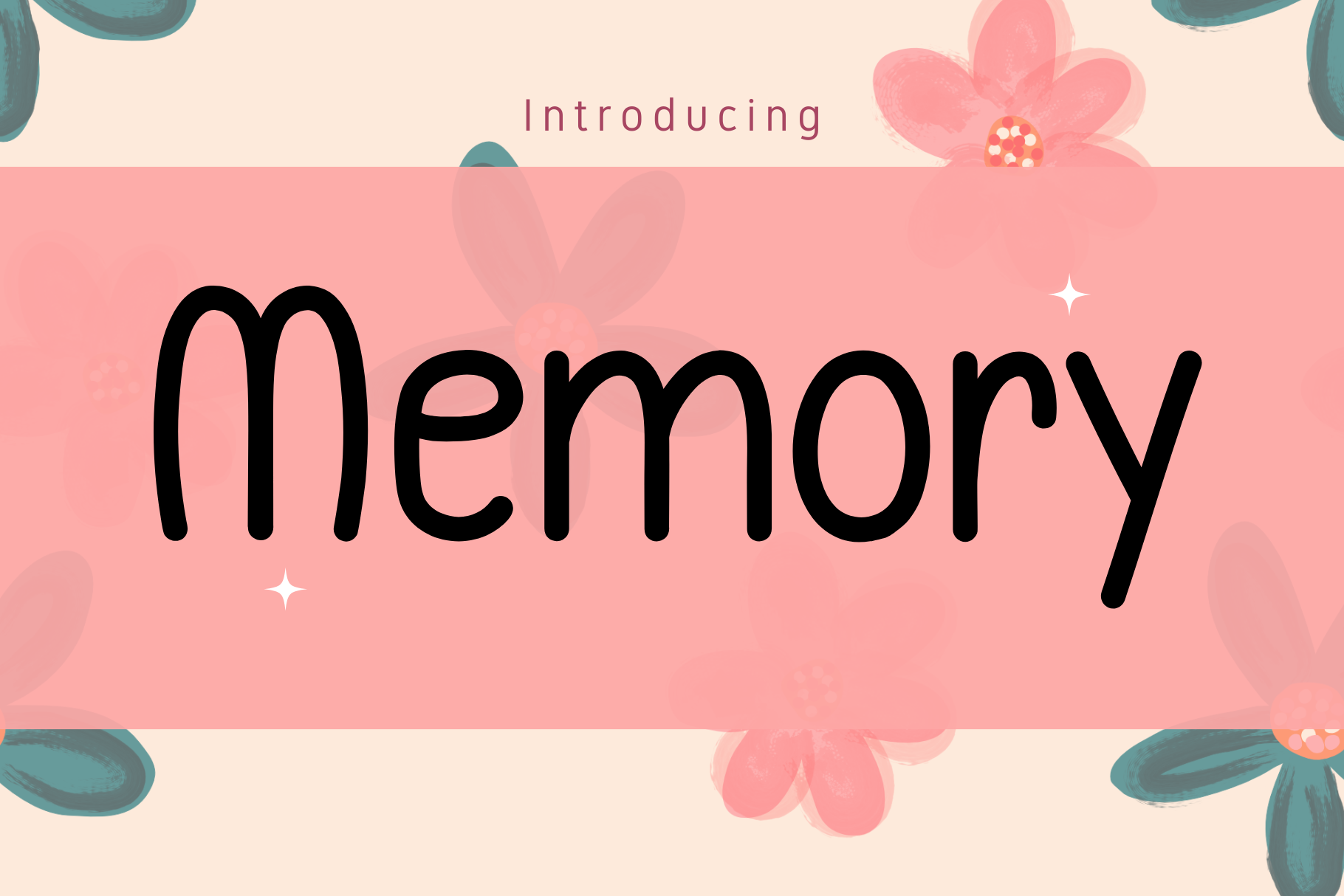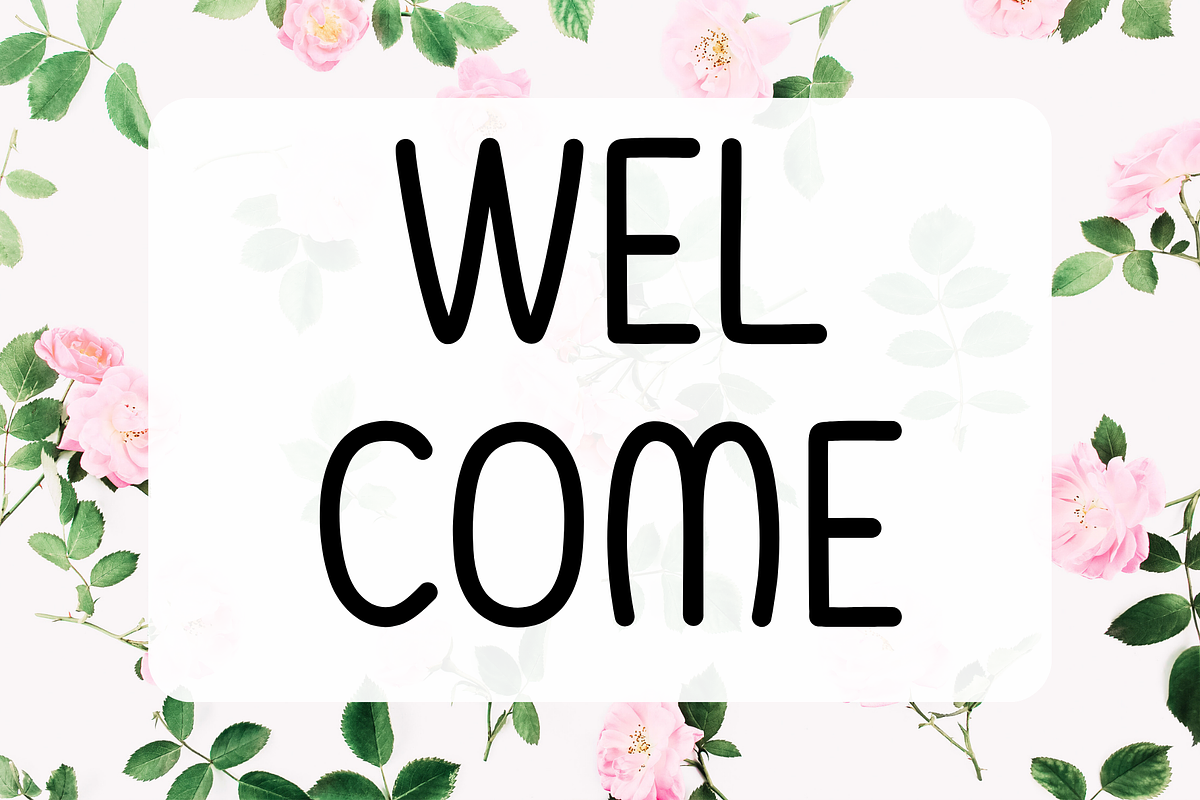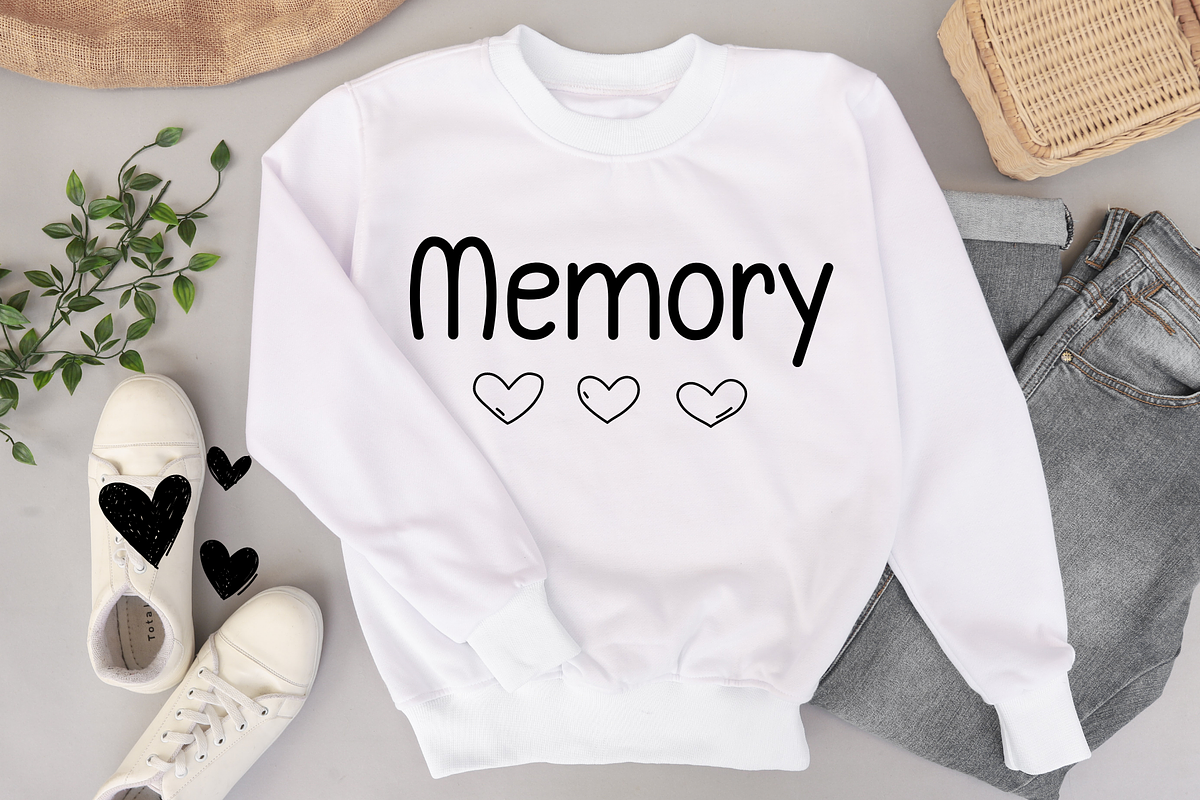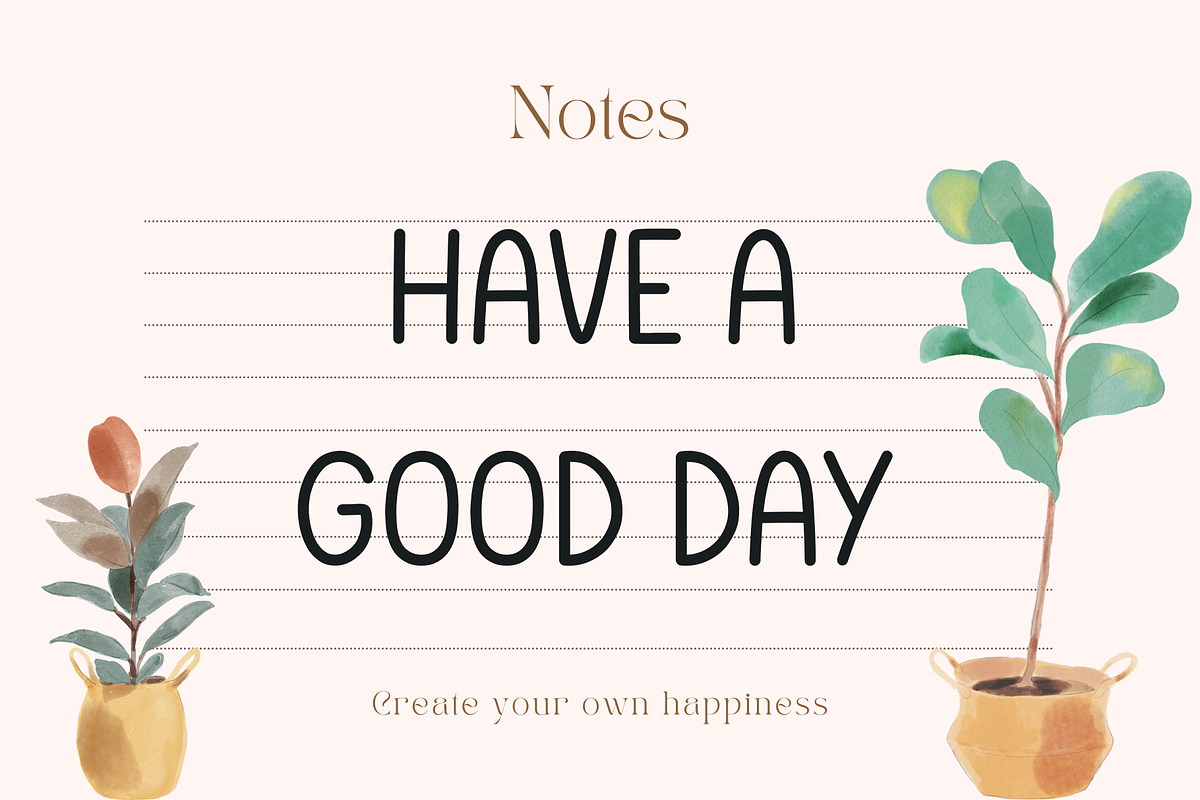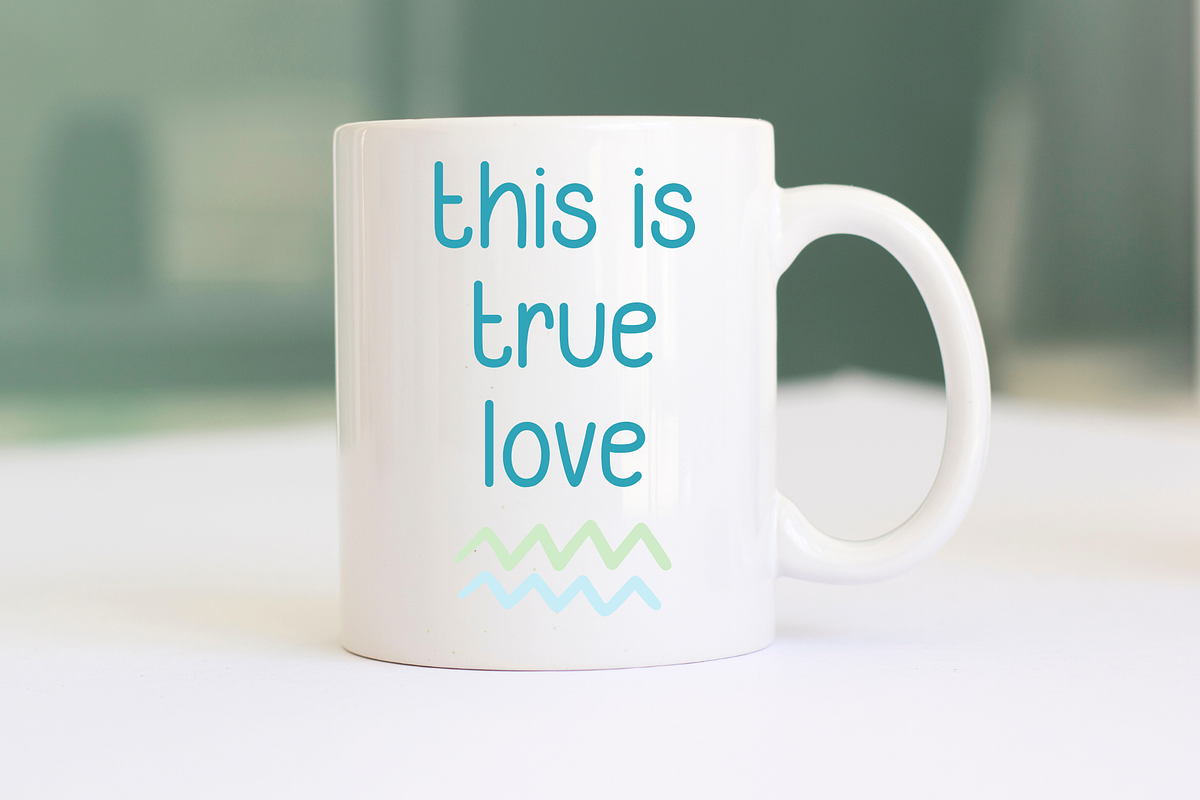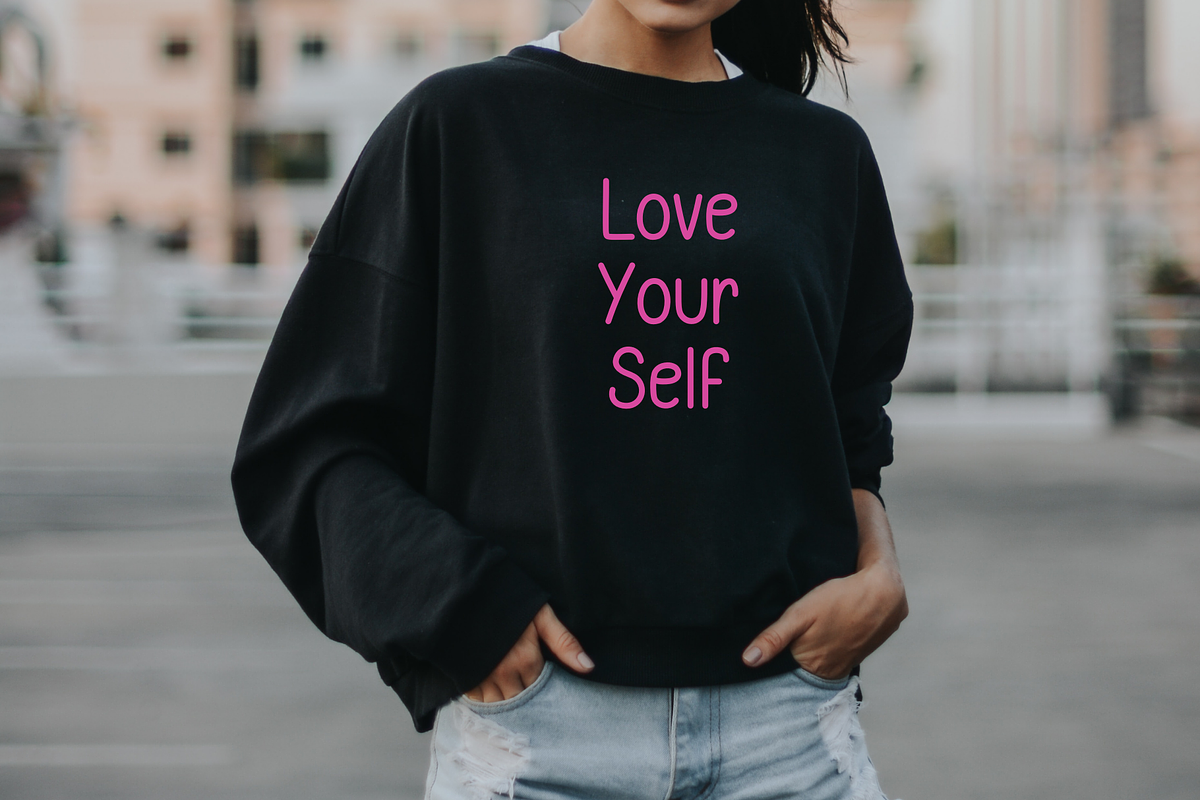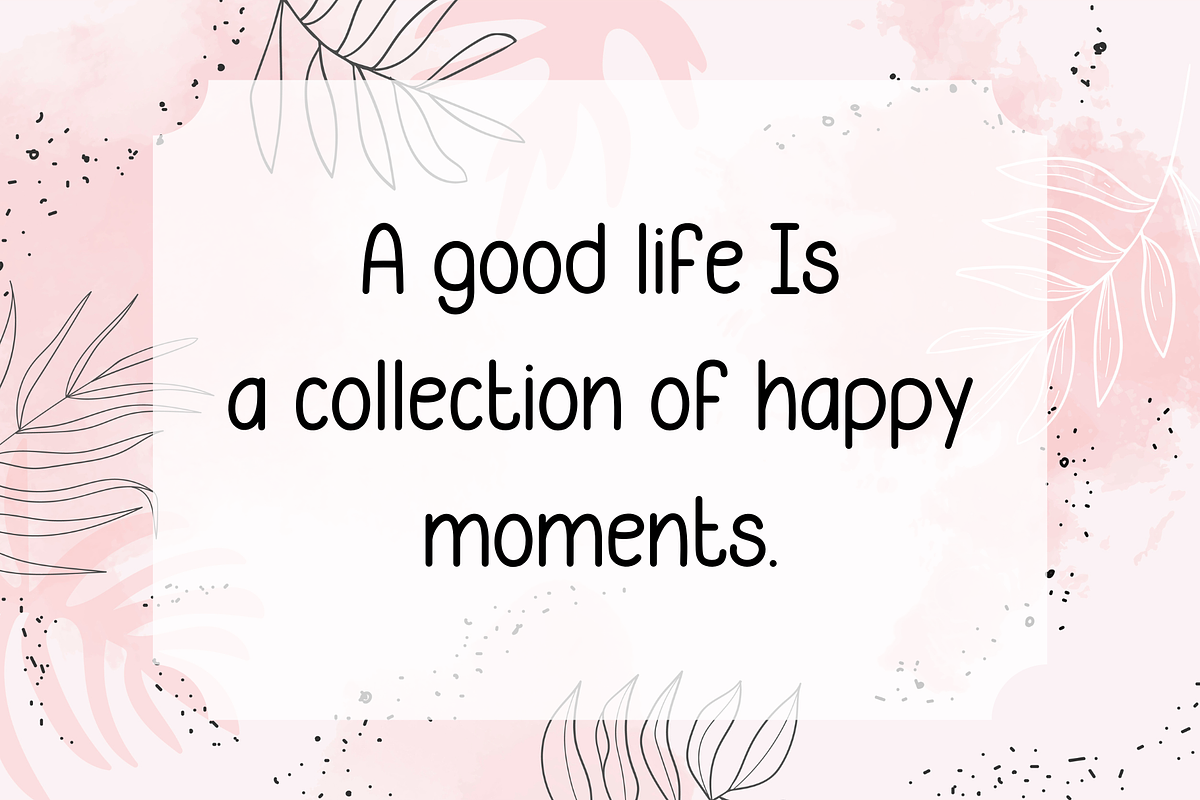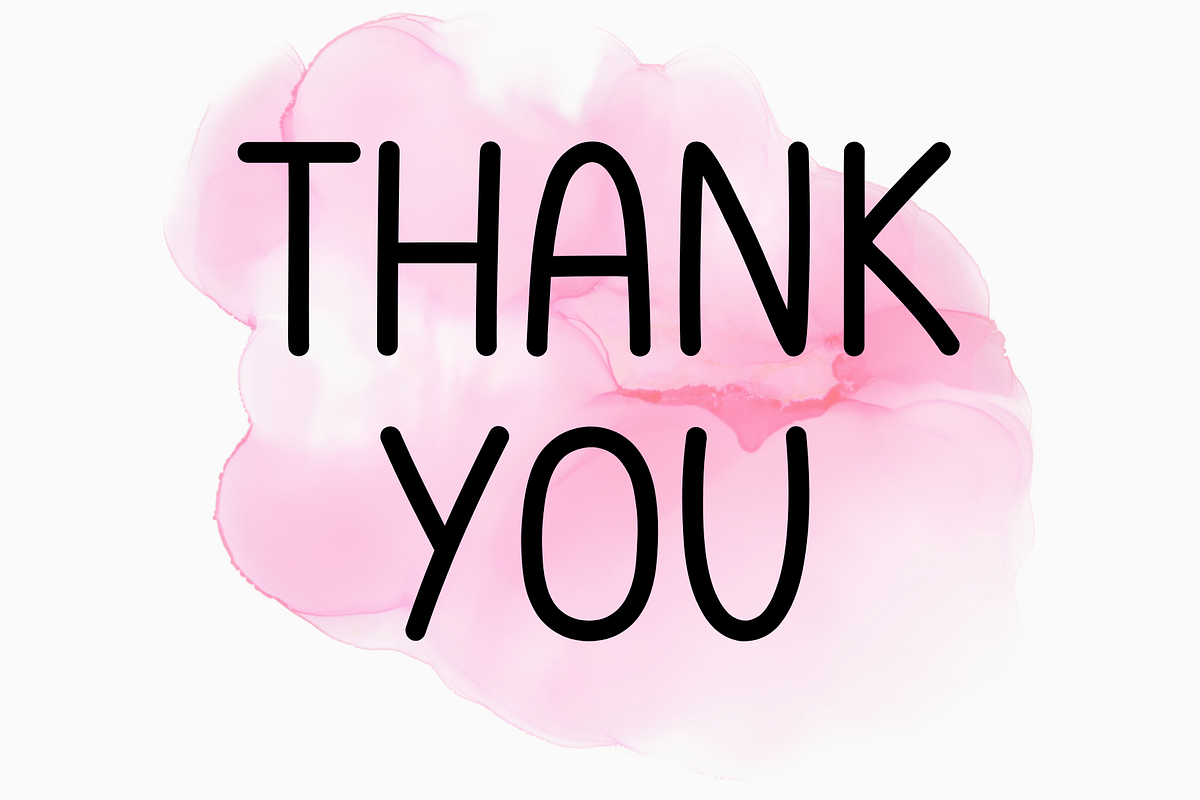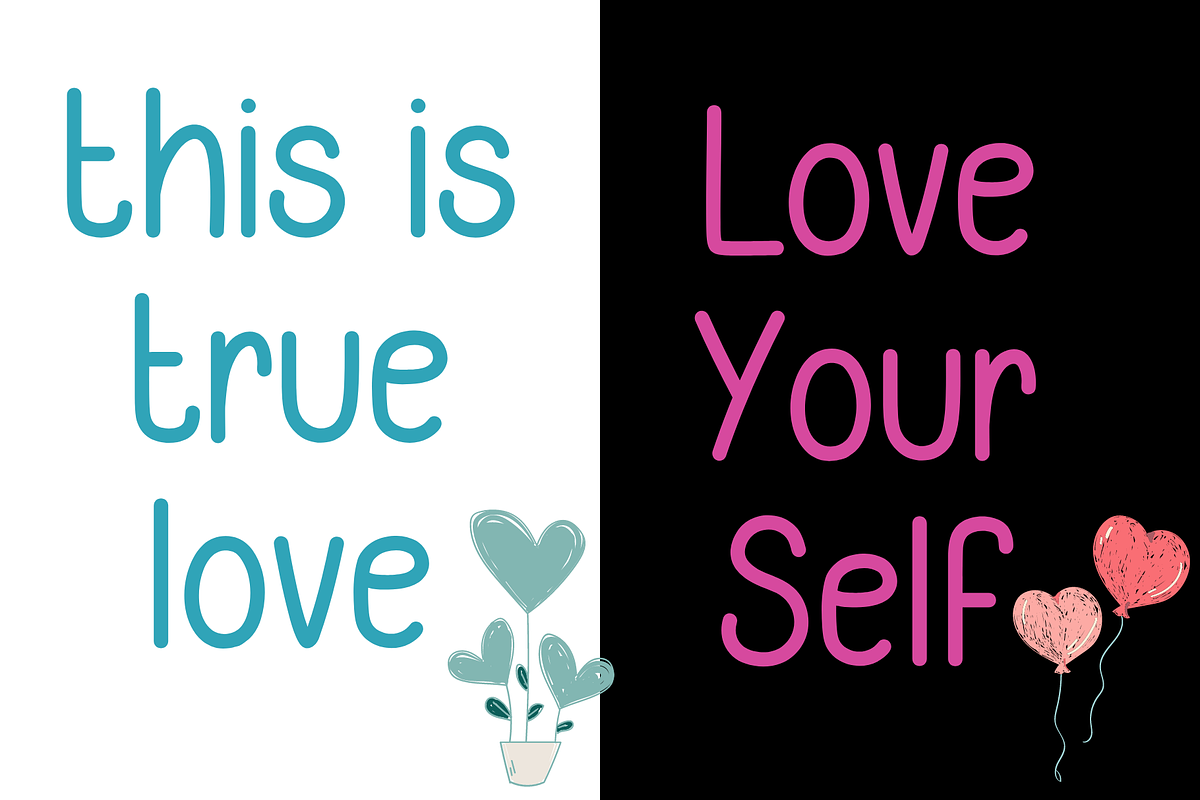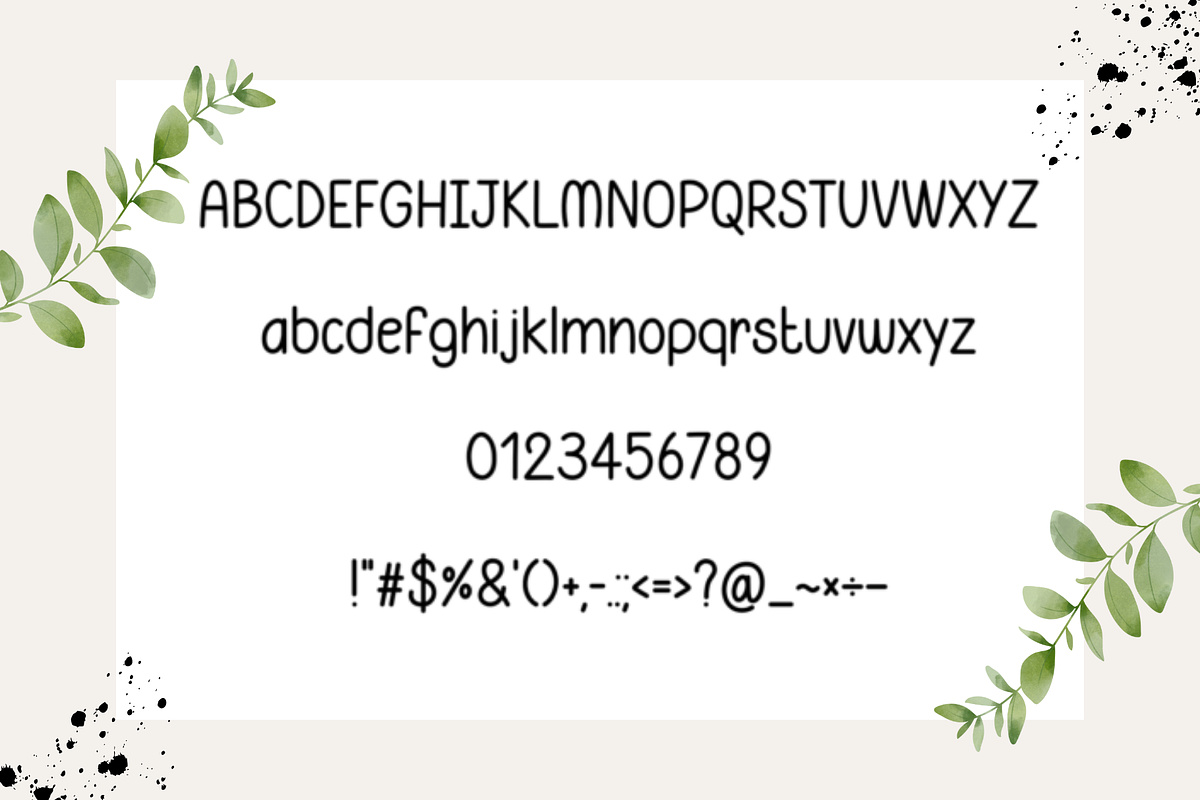
Memory Font
Memory is a cute and groovy handwritten display font suitable for designing T-shirts, tote bags, hats, stickers, wedding invitations, logos, cards, quotes, and more!